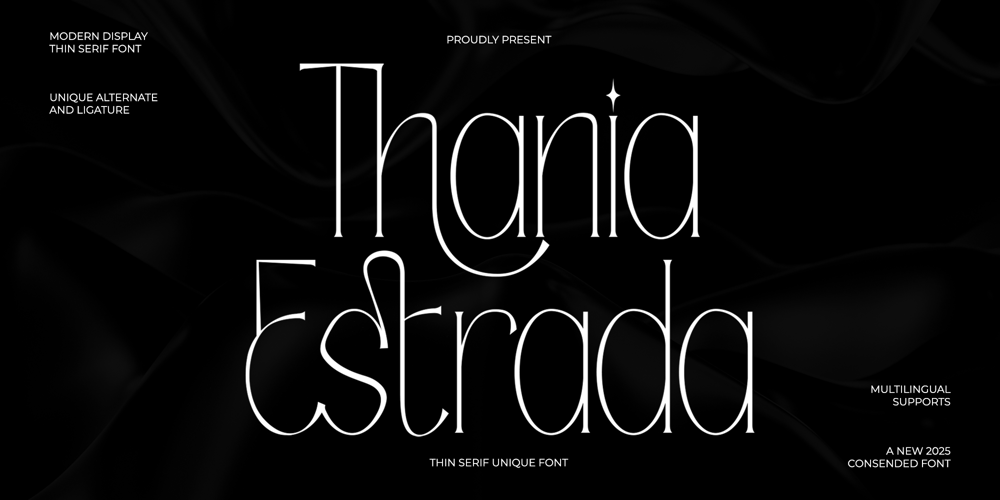
Thania Estrada Font Family was designed by Virgiawan Listanto and published by Inviline. Thania Estrada contains 1 styles and family package options. Elevate your designs with this exquisitely thin, unique serif font. Its delicate yet striking character lends sophistication to logos, branding, wedding invitations, and more. A versatile and modern typeface for discerning designers.